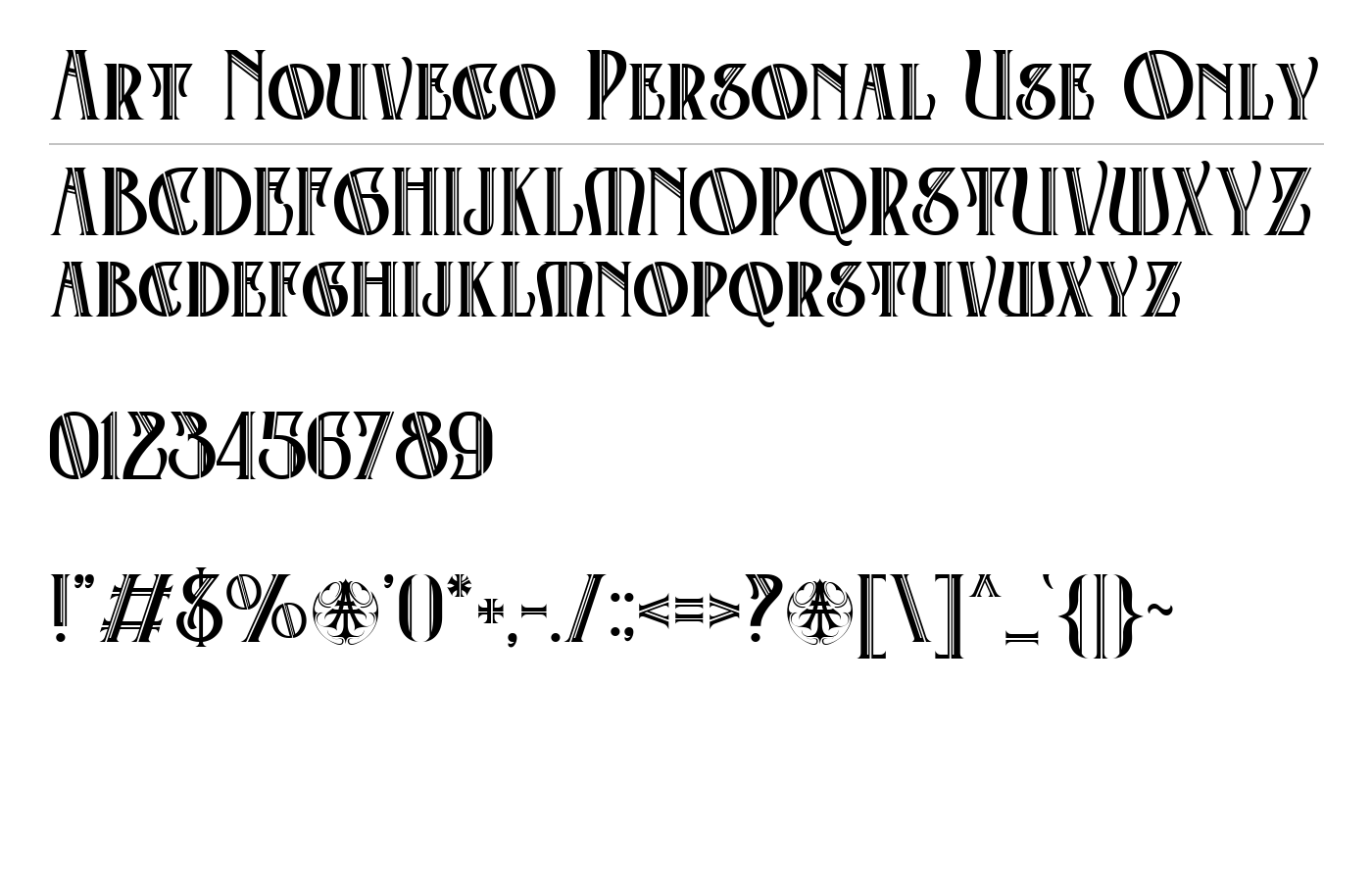
Art Nouveco Personal Use Only is a distinctive display serif font inspired by the Art Nouveau style, featuring tall, narrow letterforms with high contrast between thick and thin strokes. Its elegant, stylized shapes, including unique letter details and dramatic lines, give it a vintage yet artistic flair, making it ideal for decorative headlines, logos, and branding that seek a sophisticated and ornamental look. This font works best where bold, eye-catching design is needed rather than for long text, bringing a refined, creative charm to fashion, luxury, or artistic projects.
Art Nouveco Personal Use Only Font
About Art Nouveco Personal Use Only Font